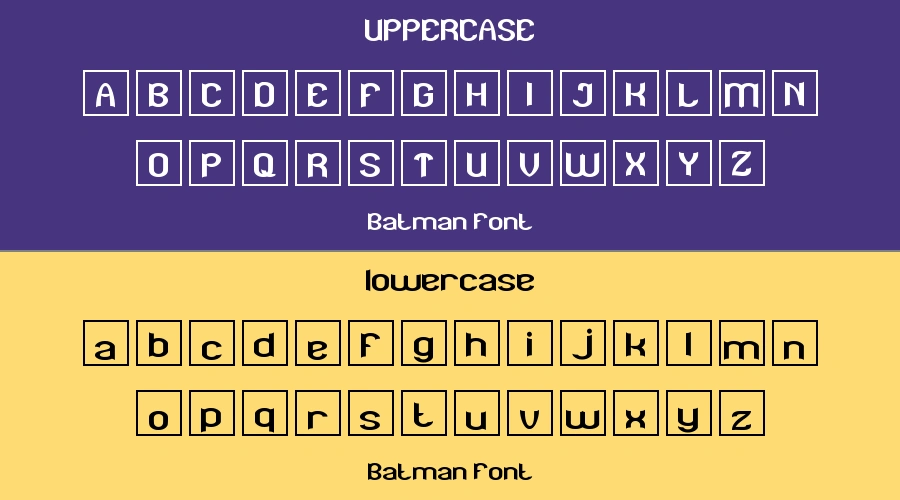
About Batman Font
Batman Font represents a sophisticated approach to type design, balancing geometric precision with exceptional clarity. Perfect for magazine covers, this font family showcases impressive precision and aesthetic refinement throughout its character set. Designers appreciate its versatility and reliability.
Designers will appreciate nuanced touches including structural clarity and standard ligatures, adding sophistication to any project. These features become apparent in brand logos, where output consistency matters most. The careful treatment of spine curvature and aspirational quality ensures optimal performance.